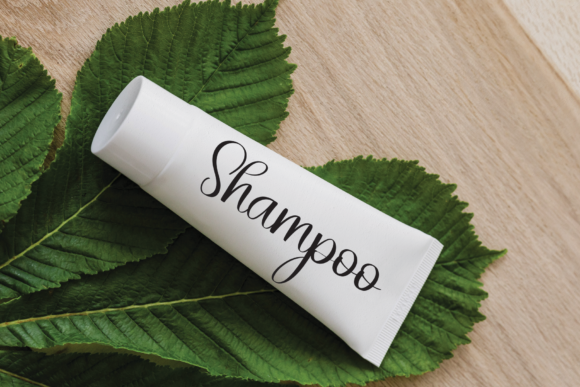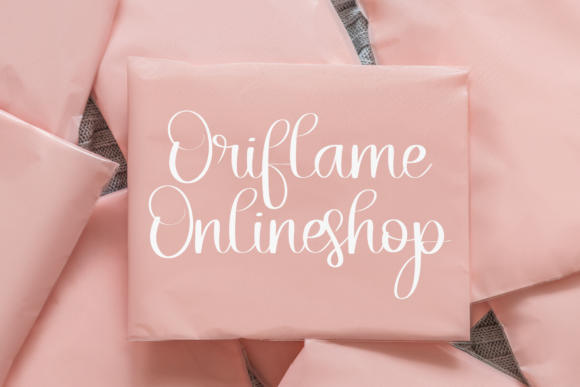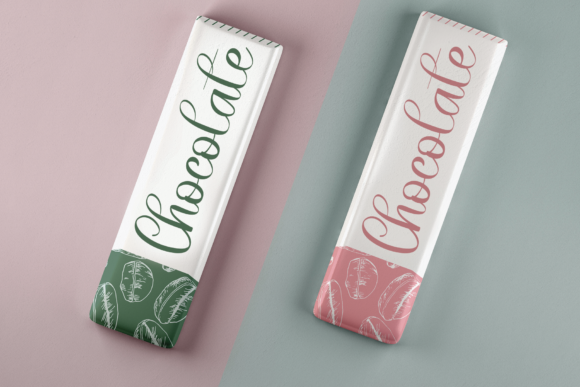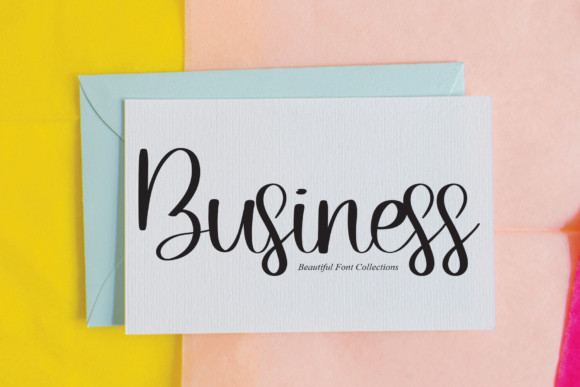
Bumblebee Font: The Sweet Handwritten Font for Your Creative Projects
Are you a designer or crafter looking for a unique and charming font to add a personal touch to your projects? Look no further than the Bumblebee Font, a sweet handwritten font that is sure to delight. Crafted with great care, this font is designed to produce the expected results, making it perfect for a wide range of applications.
What is Bumblebee Font?
Bumblebee Font is a carefully crafted handwritten font that is designed to bring a touch of warmth and personality to your designs. With its sweet and charming appearance, this font is perfect for creating unique and eye-catching projects that stand out from the crowd. Whether you’re working on a branding project, a craft design, or a digital product, Bumblebee Font is the perfect choice.
Features of Bumblebee Font
So, what makes Bumblebee Font so special? Here are just a few of its key features:
- Handwritten with love: Bumblebee Font is a handwritten font that is crafted with great care and attention to detail. Each letter is carefully written to produce a unique and charming appearance.
- Versatile: This font can be used to write various kinds of products according to their individual needs. Whether you’re creating a logo, a label, or a digital product, Bumblebee Font is the perfect choice.
- Easy to read: Despite its handwritten nature, Bumblebee Font is easy to read and understand. This makes it perfect for creating designs that need to communicate a message clearly.
- Unique: Bumblebee Font is a one-of-a-kind font that is sure to make your designs stand out from the crowd. Its unique appearance will add a touch of personality to your projects and make them more memorable.
How to Use Bumblebee Font
Using Bumblebee Font is easy. Here are a few tips to get you started:
- Pair it with other fonts: Bumblebee Font can be paired with other fonts to create a unique and interesting design. Try pairing it with a bold font for a striking contrast.
- Use it for headings: Bumblebee Font is perfect for headings and titles. Use it to add a touch of personality to your designs and make them more eye-catching.
- Experiment with colors: Bumblebee Font looks great in a variety of colors. Experiment with different colors to find the one that works best for your design.
Benefits of Using Bumblebee Font
So, why should you use Bumblebee Font for your designs? Here are just a few benefits:
- Save time: With Bumblebee Font, you can create unique and eye-catching designs in no time. Its easy-to-use nature makes it perfect for designers and crafters who are short on time.
- Stand out from the crowd: Bumblebee Font is a one-of-a-kind font that is sure to make your designs stand out from the crowd. Its unique appearance will add a touch of personality to your projects and make them more memorable.
- Perfect for crafters: Bumblebee Font is perfect for crafters who want to add a personal touch to their designs. Its handmade nature makes it perfect for creating unique and eye-catching crafts.
In conclusion, Bumblebee Font is a sweet handwritten font that is perfect for designers and crafters who want to add a personal touch to their projects. With its unique and charming appearance, this font is sure to delight. Whether you’re working on a branding project, a craft design, or a digital product, Bumblebee Font is the perfect choice. So why wait? Download Bumblebee Font today and start creating unique and eye-catching designs that stand out from the crowd.